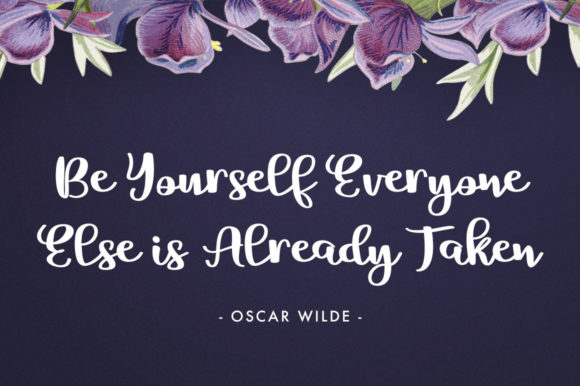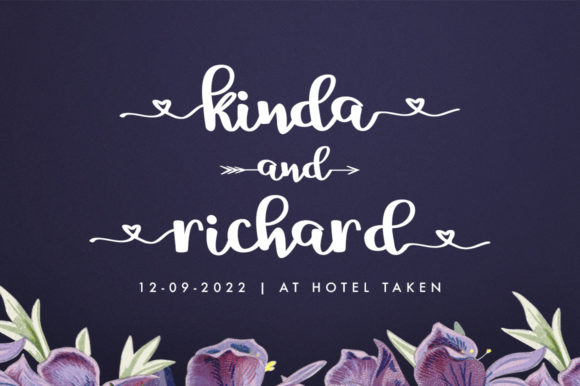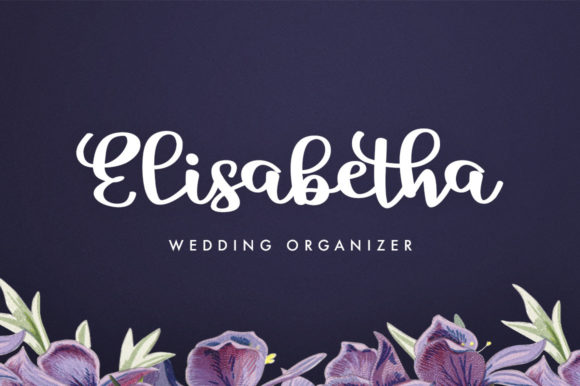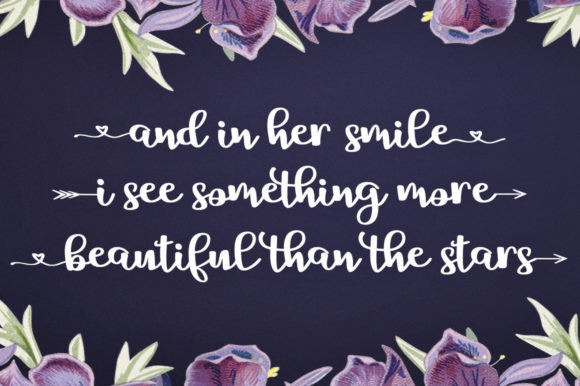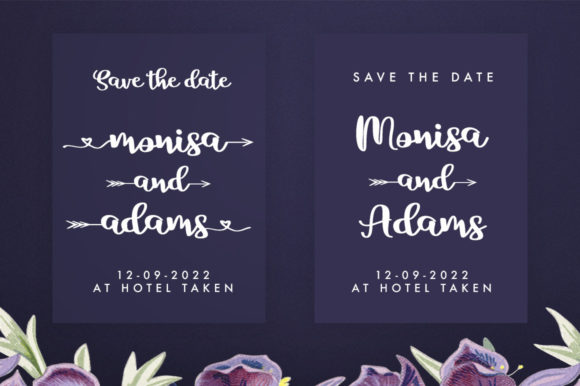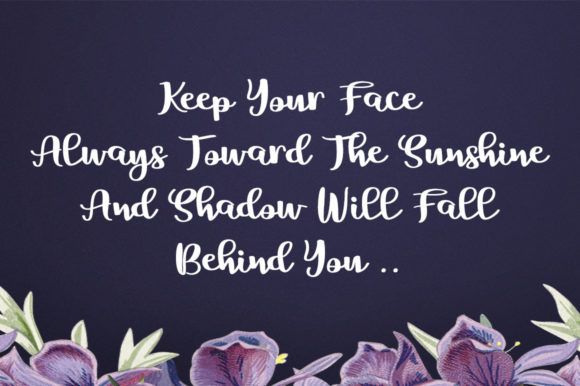
Introduction to Matherne Script Font
Matherne Script is a lovely script font featuring charming, playful characters that seem to dance along the baseline.
Add it to your most creative ideas, and notice how it makes them stand out This font is PUA encoded which means you can access all glyphs and swashes with ease.
Key Features of Matherne Script Font